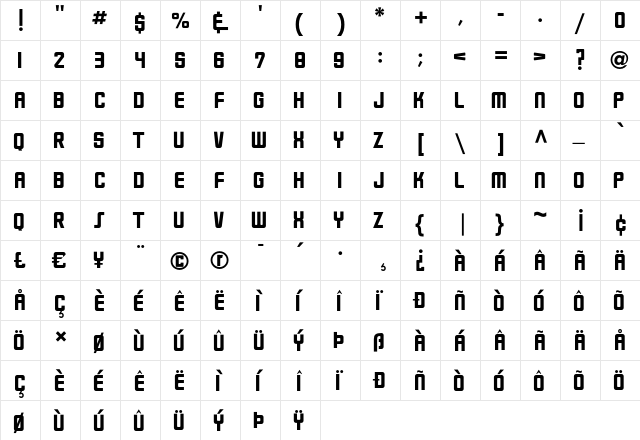
Milwaukee Regular
Design Context for Milwaukee Typeface
Milwaukee is a composed and adaptable typeface that performs quietly and consistently across a wide range of design contexts.